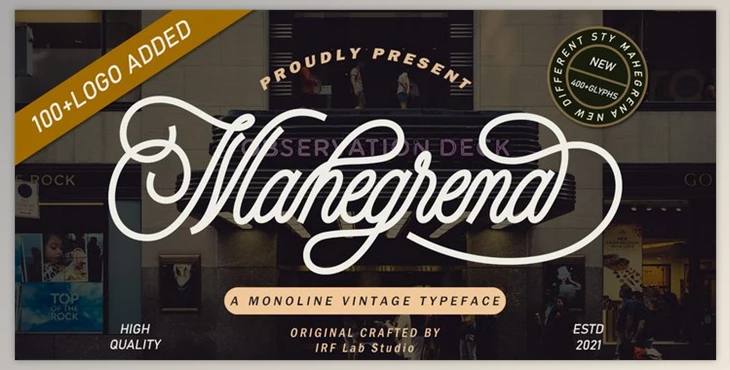
Mahegrena Font - MyFonts:
Mahegrena is a soft smooth, elegant, and flowing handwritten font that is elegant, and flowing. It features beautiful and balanced characters. As an outcome, it can be used in many designs. The Glisten has a different line, smooth and smooth beautiful glyphs, and breathtaking alternatives. It can be incorporated into your most innovative concepts and observe how it helps them come to life!